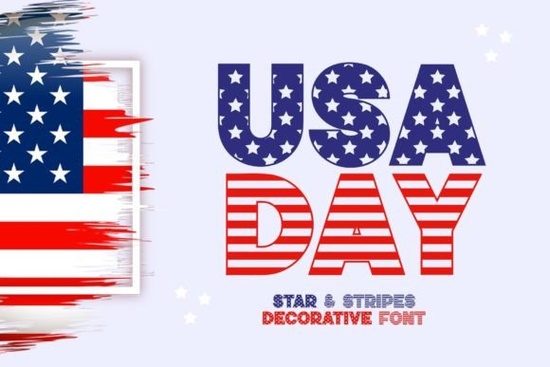
If you’re working on a project tied to American holidays or patriotic themes, Usa Day Font brings the spirit of the flag right into your typography. Designed with star accents on uppercase letters and subtle stripes on lowercase, it’s more than just a typeface it’s a visual nod to national pride. Whether you’re crafting Independence Day invitations, Memorial Day merch, or Veteran’s Day posters, this font adds instant context without needing extra graphics.
It pairs especially well with clean layouts where the letterforms themselves carry the theme. Think t-shirts for 4th of July block parties, printable banners for backyard BBQs, or even digital social media templates for small businesses running holiday promotions. The decorative elements are built in, so you don’t need to layer clipart or spend time aligning stars manually.
What kinds of projects work best with Usa Day Font?
This font shines when used in contexts that celebrate U.S. heritage or seasonal events. Here’s where it fits naturally:
- Print-on-demand products mugs, tote bags, or phone cases themed around patriotic holidays.
- Event signage think parade floats, community picnic banners, or school assemblies.
- Digital templates Canva-style social posts, email headers, or printable planners for July 4th sales.
- Craft projects vinyl decals, iron-on transfers, or scrapbook titles that need that red-white-and-blue flair.
Because the design is already stylized, keep backgrounds simple. A solid navy, crisp white, or faded denim texture lets the font do the talking. Avoid pairing it with other overly decorative fonts instead, try balancing it with something clean like Runner or Belmore for contrast.
How does it compare to other display fonts for themed designs?
Not all display fonts carry built-in symbolism. Many require you to add icons or textures separately. With Usa Day Font, the patriotic motifs are part of the glyphs themselves, which saves time and keeps your files tidy. If you’ve ever layered a star graphic over text only to have it misalign on export, you’ll appreciate how this font handles everything internally.
Pro tip: Use sparingly for maximum impact
Because of its decorative nature, Usa Day Font works best as a headline or accent typeface. Long paragraphs can feel visually heavy. Stick to titles, logos, or short phrases “Land of the Free,” “Home of the Brave,” “Celebrate Freedom” where each letter gets room to breathe.
You can also experiment with color overlays. Try white text with a thin red outline, or reverse it on a dark blue background. Since the stars and stripes are part of the character shape, they’ll adapt to your fill and stroke settings in most design software.
Is this font beginner-friendly?
One thing to note: because of the detailed accents, very small sizes (below 18pt) might lose clarity in print. Test a sample first if you’re using it on business cards or tiny stickers. For web use, stick to larger display sizes hero banners, buttons, or section headers.
Designers love it for mockups. Crafters love it for speed. Small shops love it for ready-made holiday appeal.
Quick checklist before you start:
- ✅ Pair with a neutral sans-serif for body text
- ✅ Use at 24pt or larger for best detail visibility
- ✅ Avoid busy backgrounds let the font stand out
- ✅ Preview kerning some letter pairs may need manual spacing